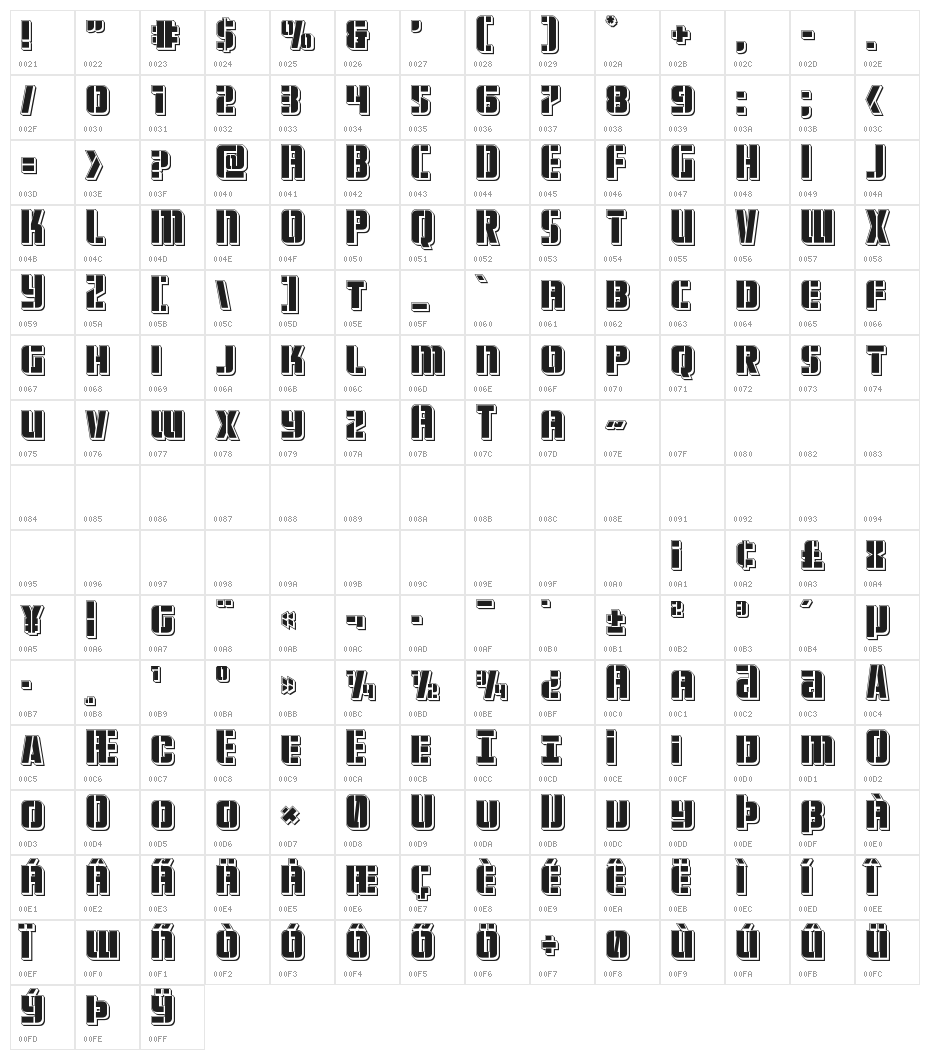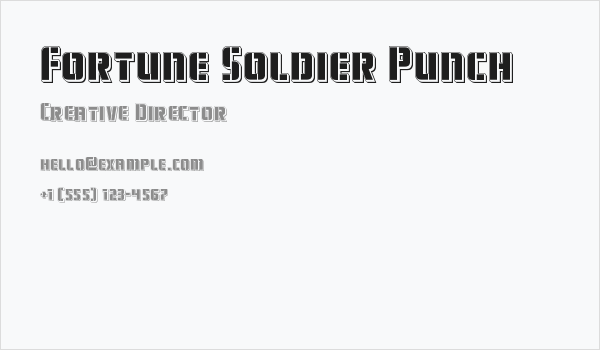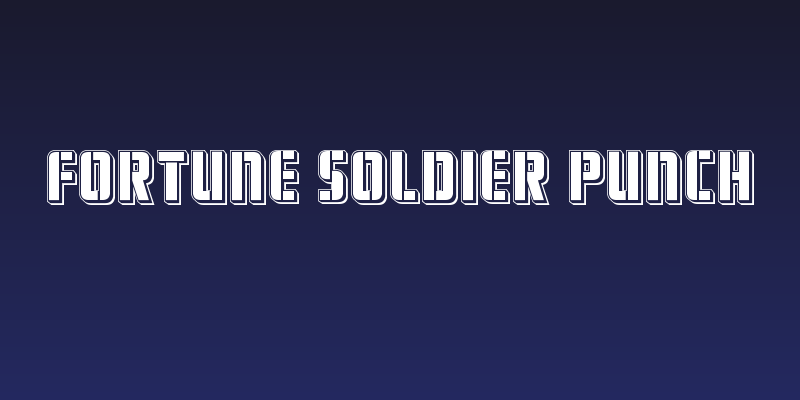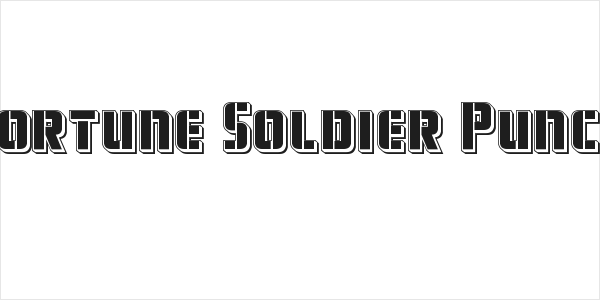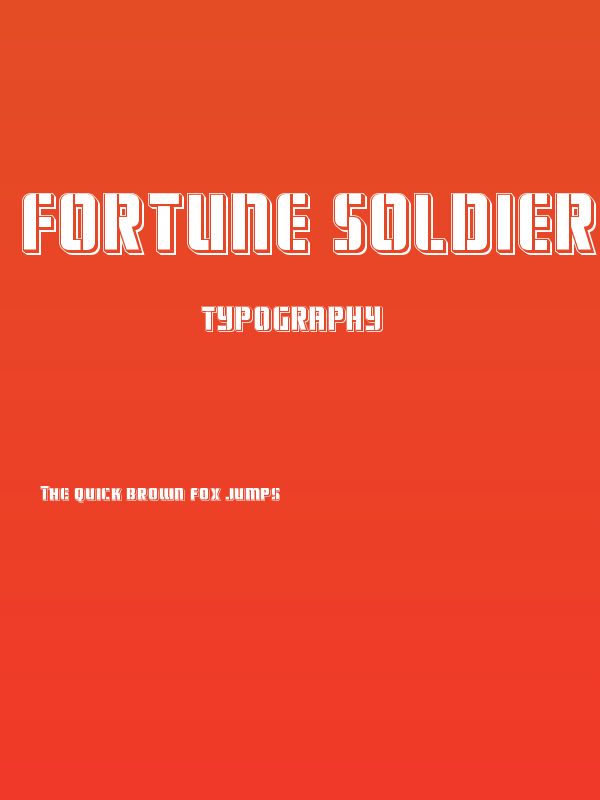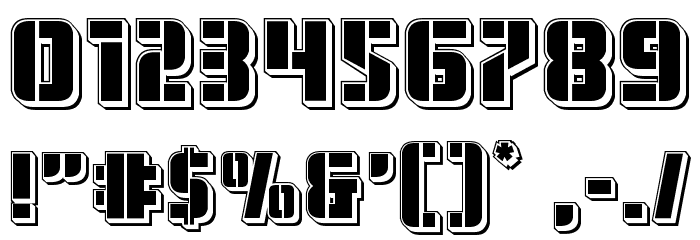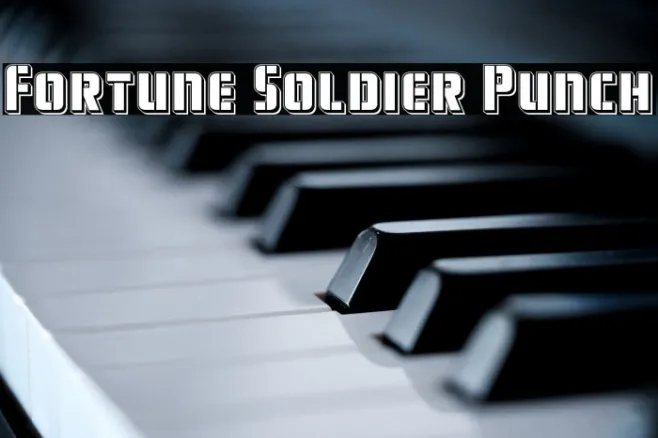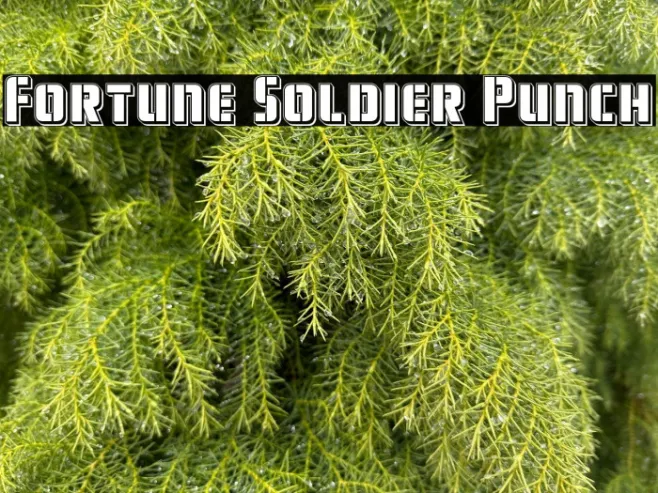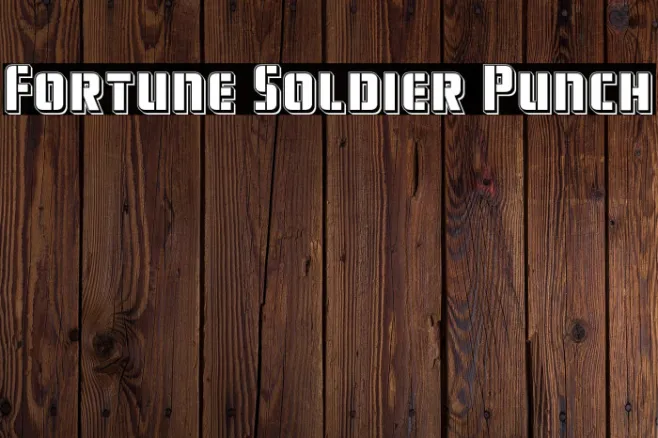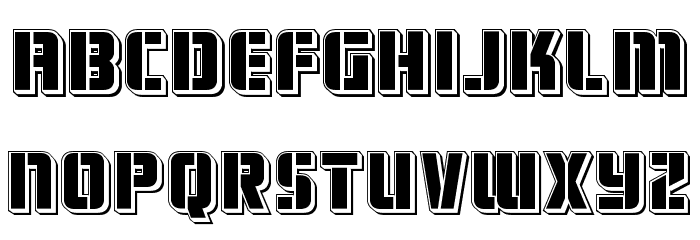
Fortune Soldier Punch Font
Fortune Soldier Punch Description
This font features a bold, geometric design with a strong presence. The characters are outlined with a thick border, creating a three-dimensional effect that adds depth and impact. The uppercase and lowercase letters maintain a consistent style, with sharp angles and clean lines. The numbers and special characters are equally bold, ensuring uniformity across all elements. This font's robust and dynamic appearance makes it suitable for attention-grabbing designs.
| Proposed Projects | Ideal for posters, headlines, logos, and any design requiring a strong, impactful typeface. |